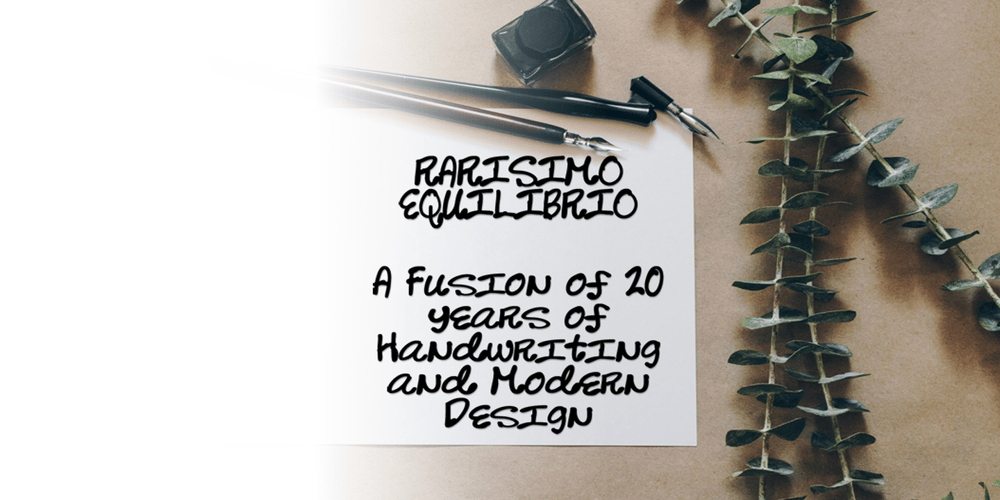
Rarisimo Equilibrio
Rarisimo Equilibrio font
Rarisimo Equilibrio Font Family was designed by Tyler Higgins and published by Thiggs Foundry. Rarisimo Equilibrio contains 1 styles and family package options. Rarisimo Equilibrio is a unique handwritten font that merges artistic expression with modern design. Created as a reflection of individuality, this hybrid font is inspired by 20 years of personal handwriting, offering an authentic and elegant touch to every project.Perfectly suited for a wide range of projects, Rarisimo Equilibrio balances boldness with fluidity. Its distinct strokes and seamless letter connections make it ideal for creating standout designs that demand attention while maintaining an air of professional poise. Designed with both unicase and non-unicase functionality, this font offers unmatched versatility, adapting effortlessly to any creative vision.